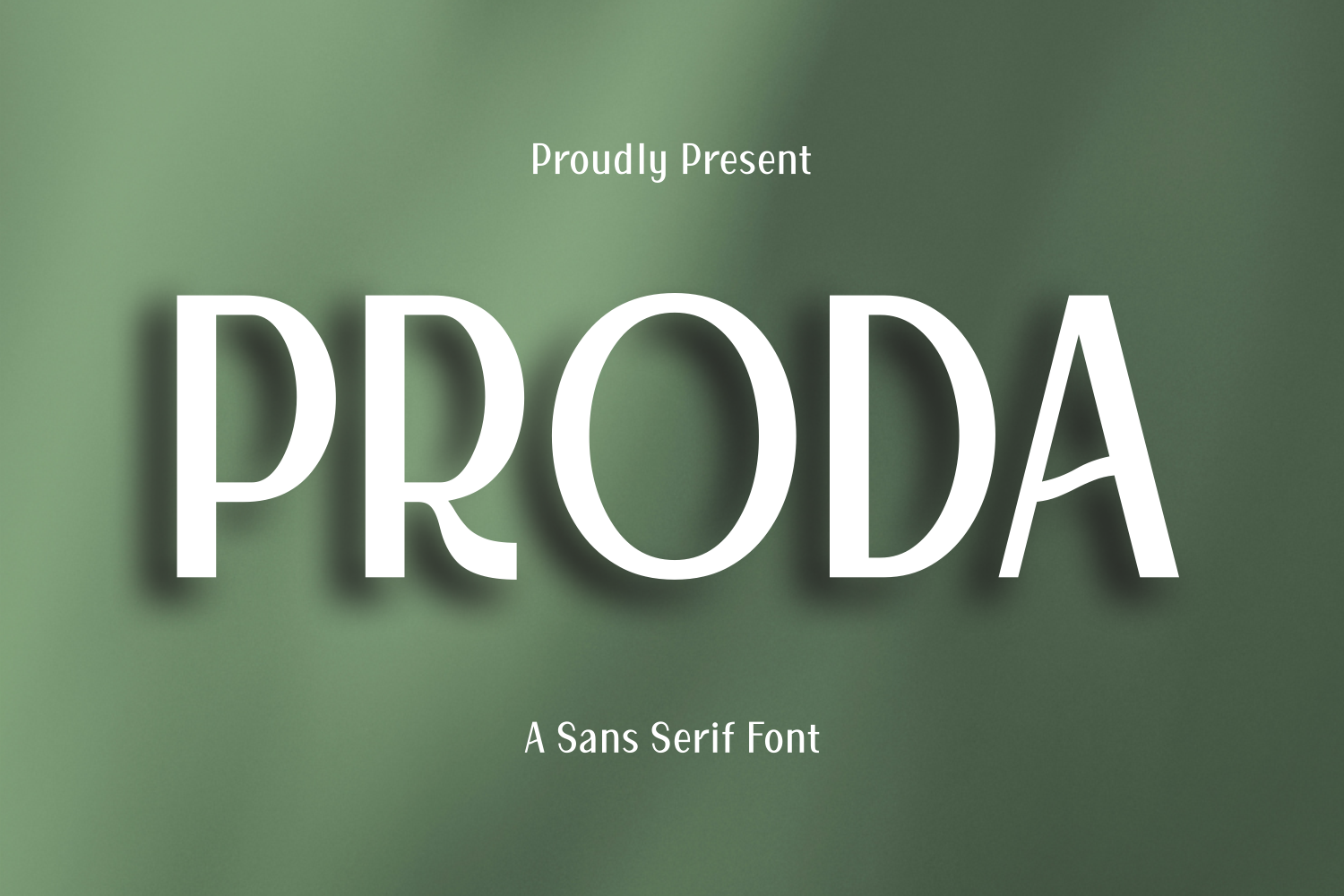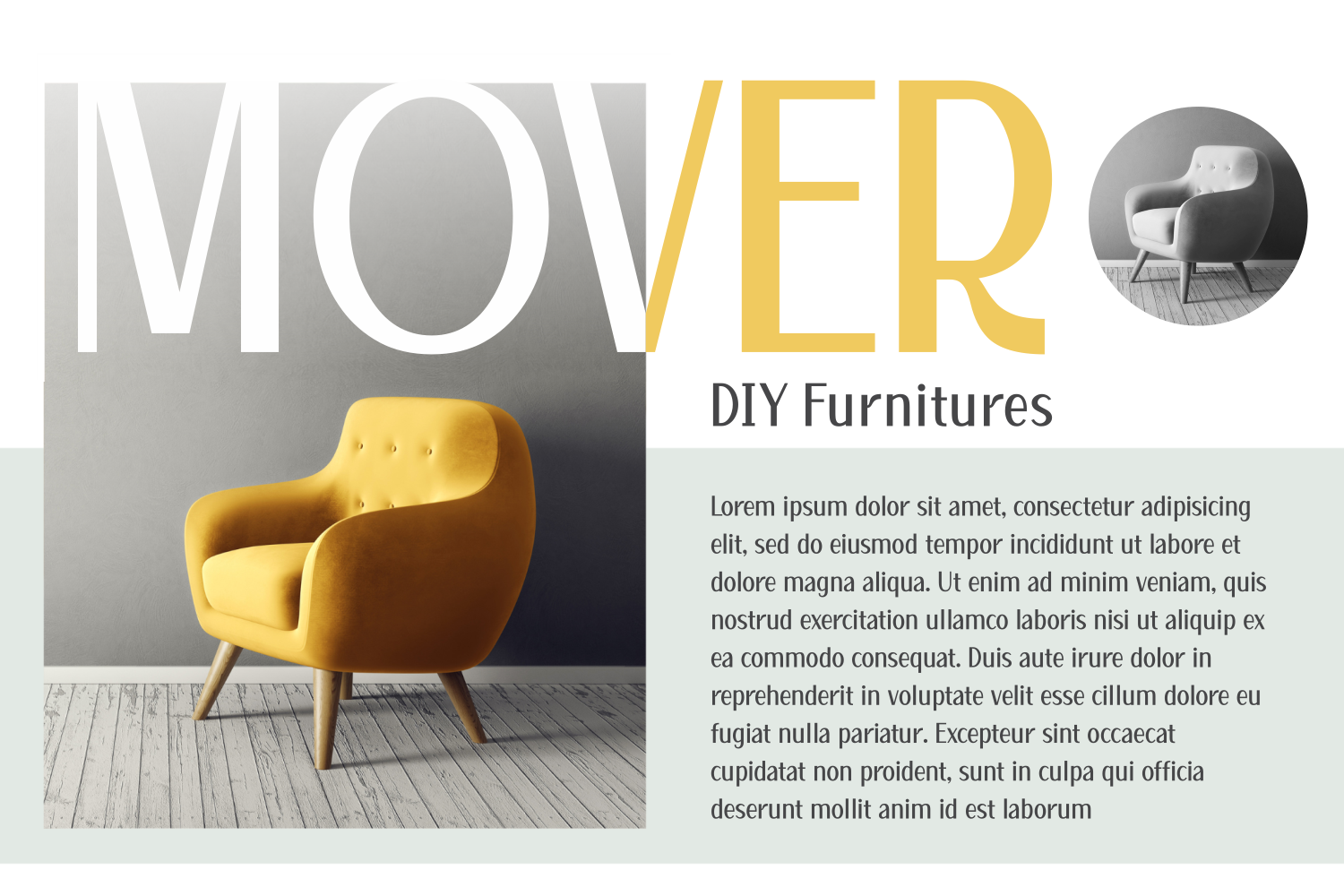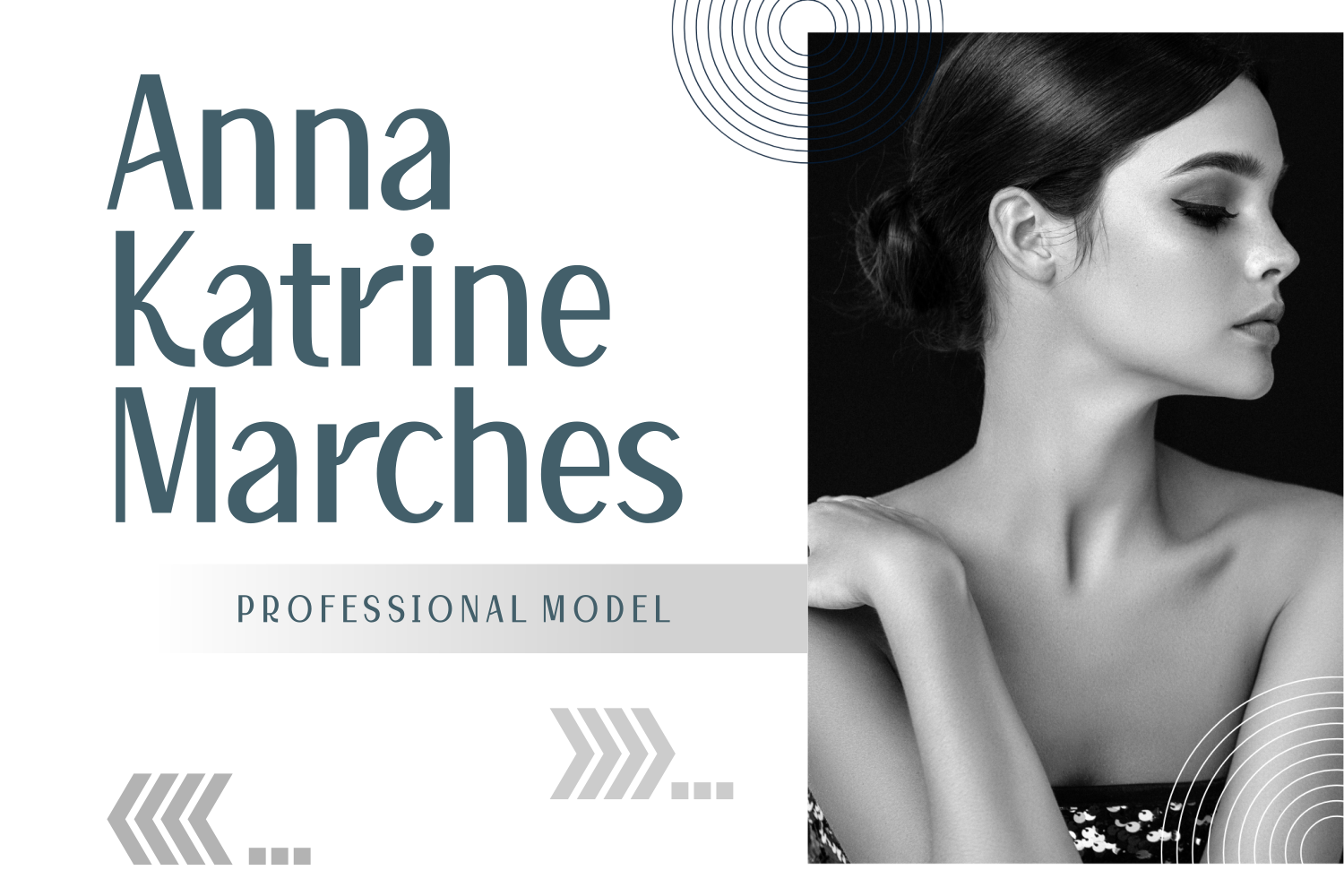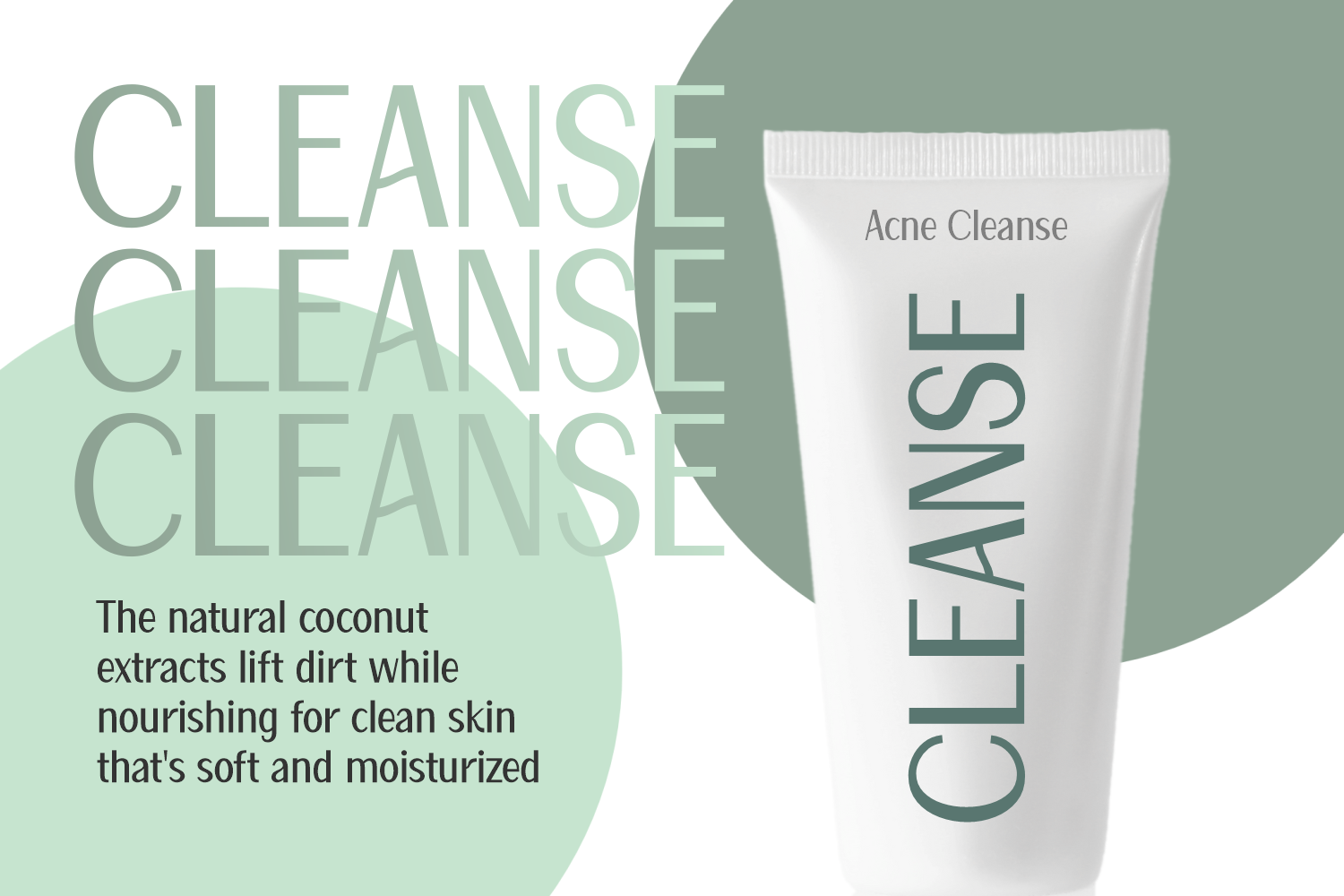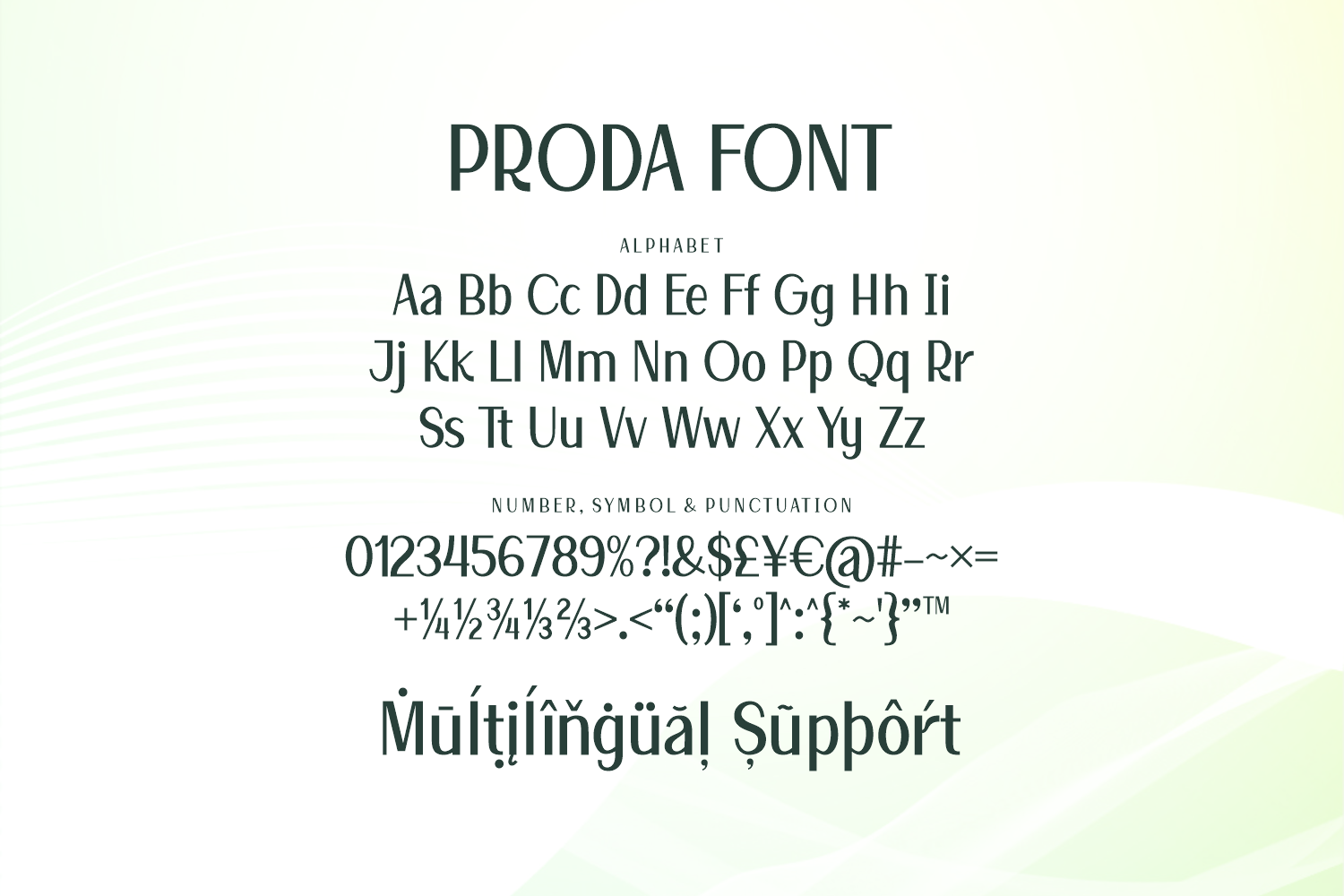
Proda is a modern sans serif font with artistic curves and confident structure. Its distinctive terminals add flair without compromising legibility, making it ideal for posters, logos, or packaging design. Bold yet graceful, Proda bridges the gap between creative expression and contemporary minimalism.